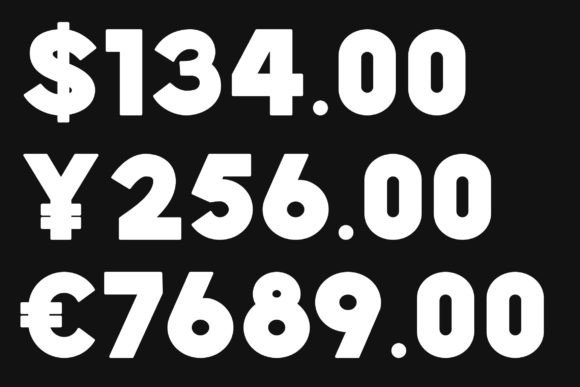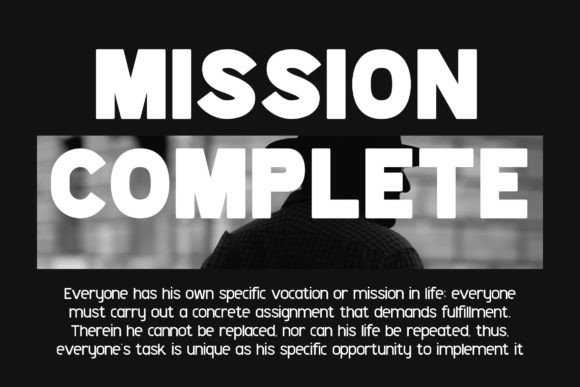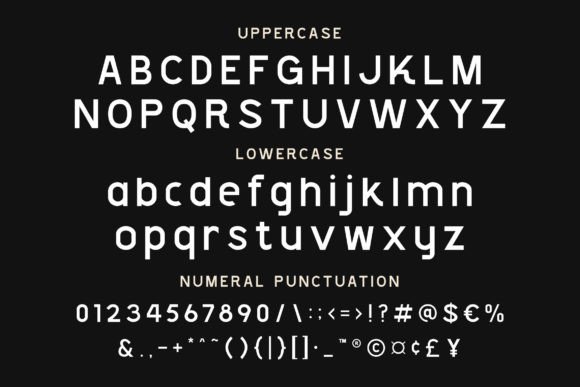
Introduction to Shackle Font
As a designer, have you ever stared at a blank canvas, struggling to find the perfect font to bring your creative project to life? The search for the perfect design resource can be overwhelming, but sometimes, it’s the simplest solutions that yield the most stunning results. That’s exactly what I discovered when I stumbled upon the Shackle Font – a modern and elegant sans-serif font that exudes professionalism and style.
With its clean and bold design, the Shackle Font is the perfect addition to any high-quality design project. Whether you’re working on a branding campaign, a web design, or a creative project, this font is sure to make a lasting impression. And the best part? It’s available for a free download, making it an accessible design resource for designers of all levels.
One of the standout features of the Shackle Font is its ability to be used on a transparent background, allowing you to customize it to fit any design need. Its versatility and timeless appeal make it a valuable asset for any designer looking to create a modern and attractive look.
Shackle Font Key Features
- Designed with a focus on readability and aesthetics, making it suitable for a range of applications, from print to digital media.
Honest Review: Shackle Font
I recently had the opportunity to work with the Shackle Font, and I must say it’s been a game-changer for my design projects. The high quality of this font has impressed me, and I’ve found it to be a valuable design resource.
- ✨ The unique design and bold characters of Shackle Font make it perfect for creative projects that require a touch of edginess.
- ✨ The transparent background of this font makes it incredibly versatile and easy to work with, allowing for seamless integration into any design.
- ⚠️ The font may not be suitable for projects that require a more subtle or minimalist approach, as it can be quite bold and eye-catching.
Overall, I’m thoroughly impressed with the Shackle Font and would highly recommend it to designers looking for a high-quality, unique font for their creative projects. It’s a great free download that can add a touch of personality to any design.
Common Use Cases for Shackle Font
Shackle Font is ideal for use in a variety of creative projects, including graphic design, branding, and marketing materials. You can use the font to create eye-catching headlines, titles, and captions that grab the attention of your audience. The font is also perfect for use in social media graphics, blog posts, and other online content.